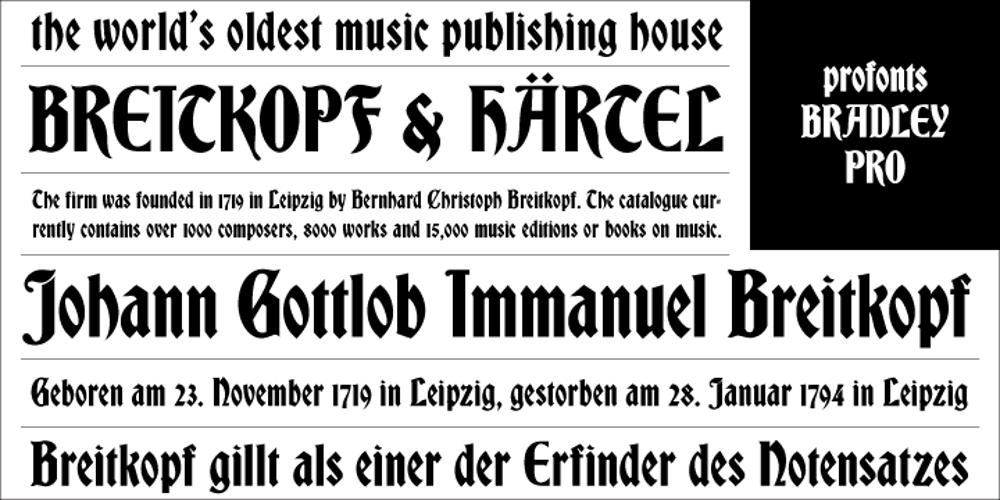
Bradley Font Family was designed by Ralph M. Unger and published by profonts. Bradley contains 1 styles and family package options. Bradley (originally named Bradley Series) was originally designed by Will H. Bradley. It is a pretty heavy blackletter design. Also in 1895, Hermann Ihlenburg at ATF created a Germanic-language version of the Bradley Series which was released under the name of Ihlenburg Series. It is based on very old manuscripts, however with plenty of new character forms. German designer Ralph M. Unger eventually revived this still very legible blackletter typeface for the digital era. He redesigned, completed and digitally re-mastered Bradley for the profonts library.